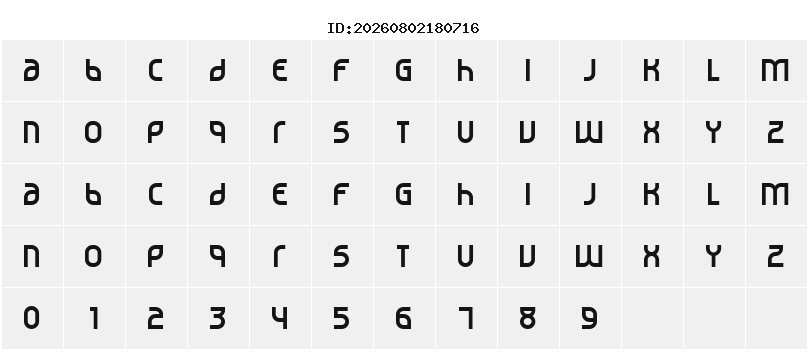
Noviembre29 Preview
• Font Name: Noviembre29
• Font Style: Heavy
• Full Font Name: Noviembre29
• Designer: Sergio Blanco
About Noviembre29.ttf
Noviembre29.ttf is a modern, elegant sans-serif font designed for ultimate readability and visual harmony. Perfect for branding, headlines, web design, and print materials.